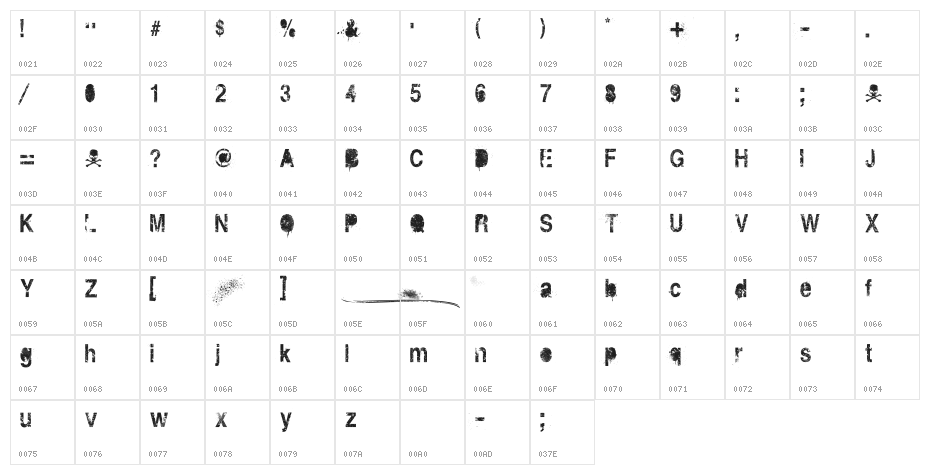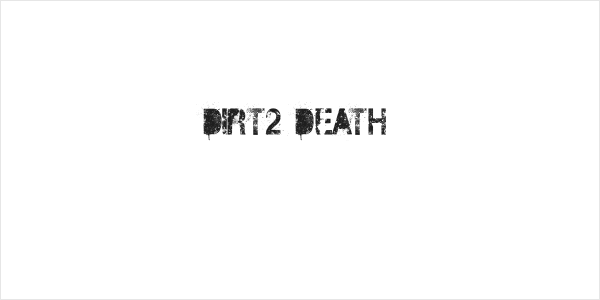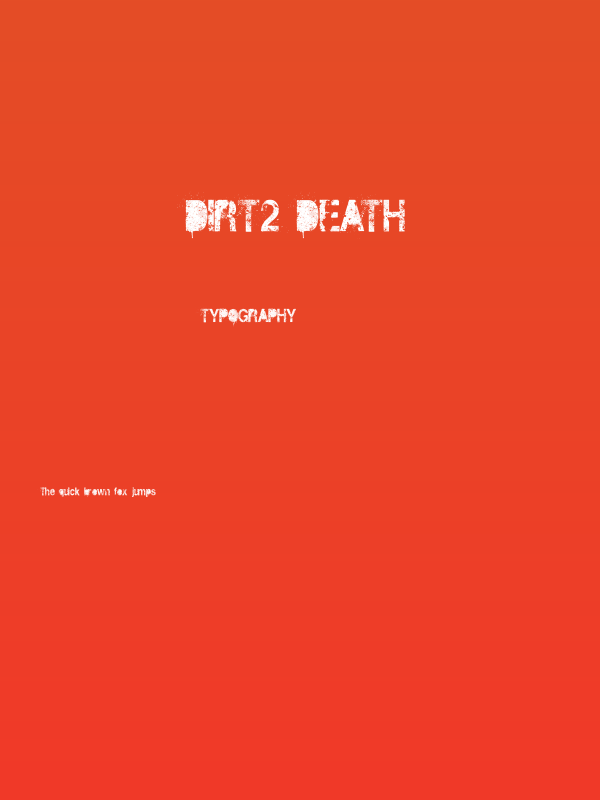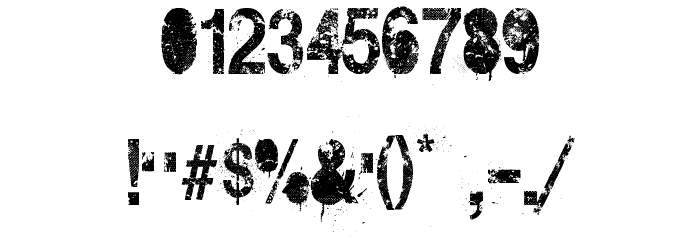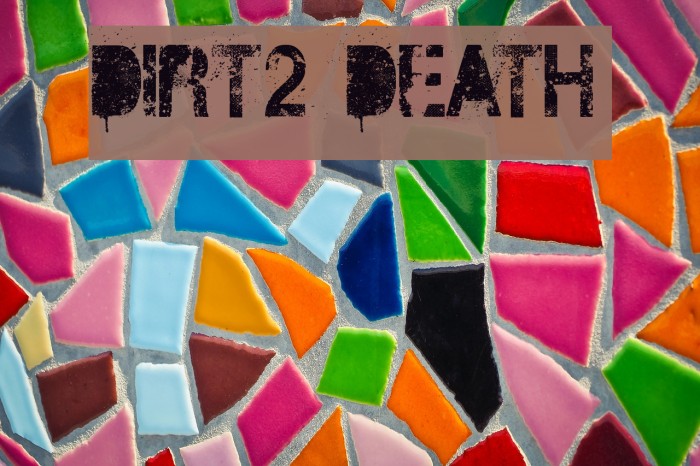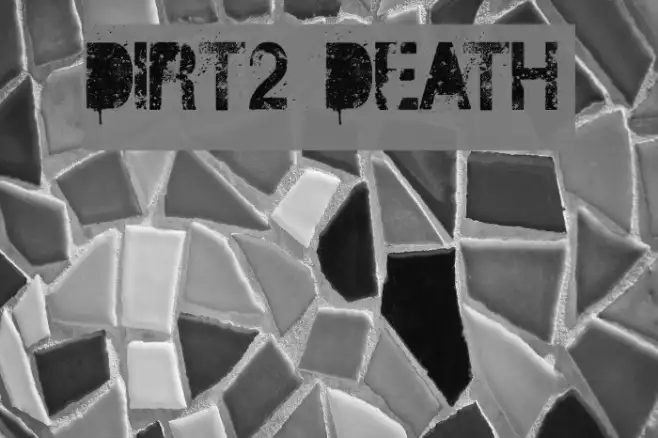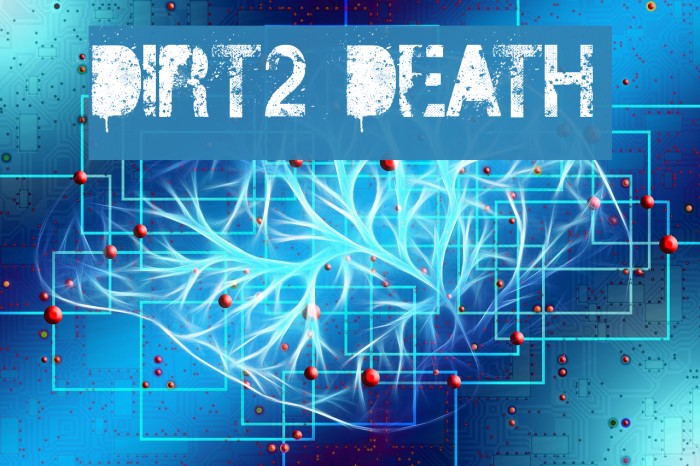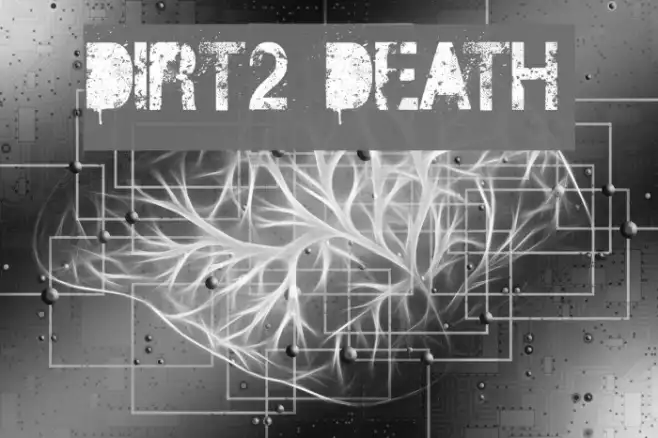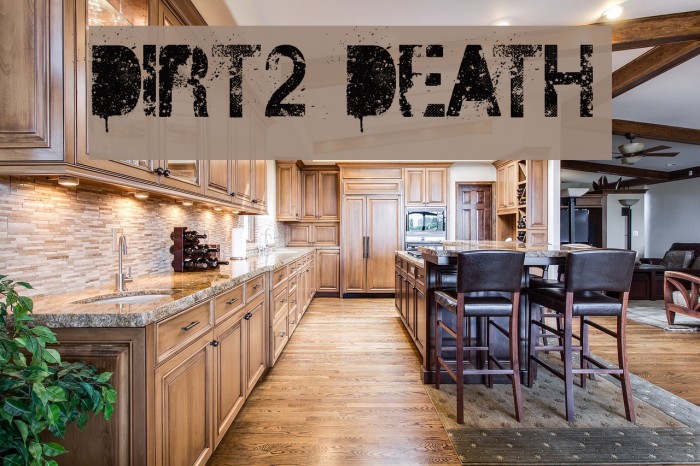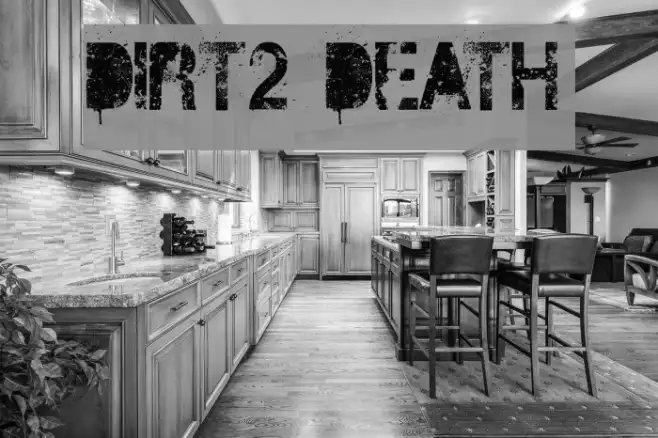
DIRT2 DEATH Font
| Gesamtstil | Grunge, Urban, Distressed |
| Vorgeschlagene Projekte | Ideal for album covers, posters, streetwear branding, or any design needing a gritty, urban aesthetic. |